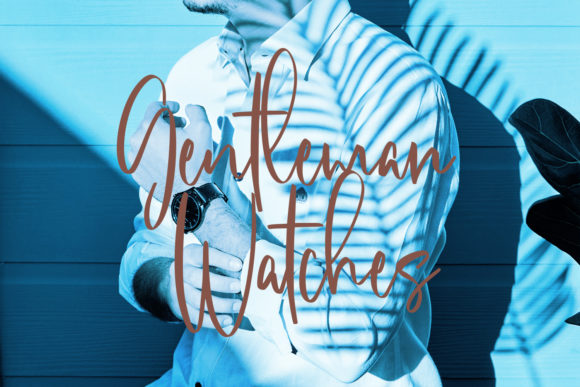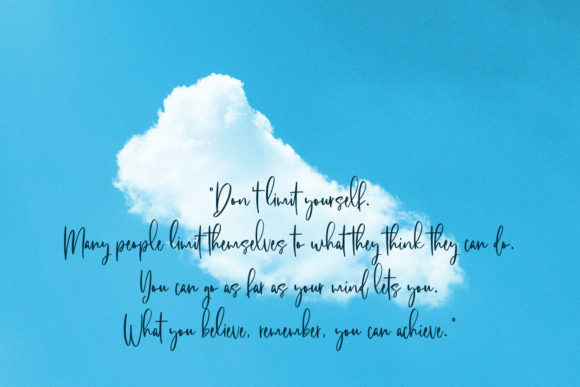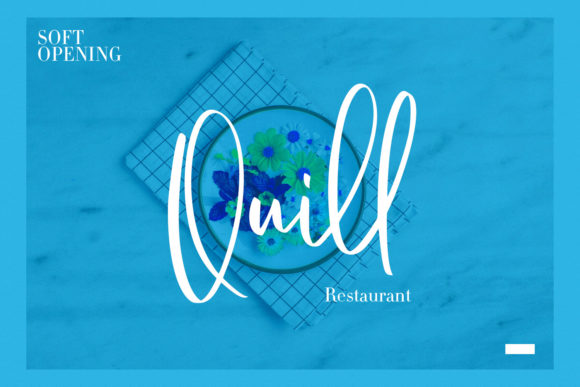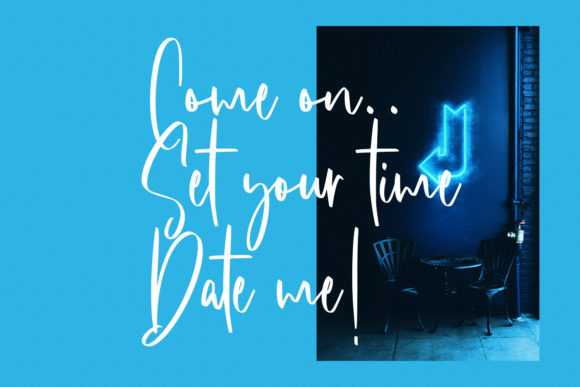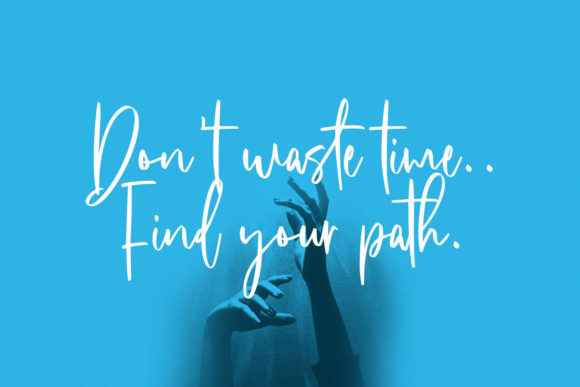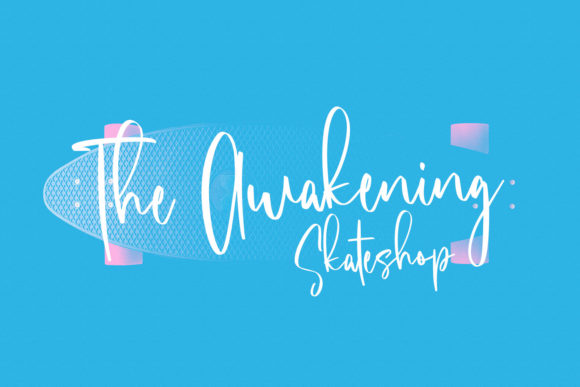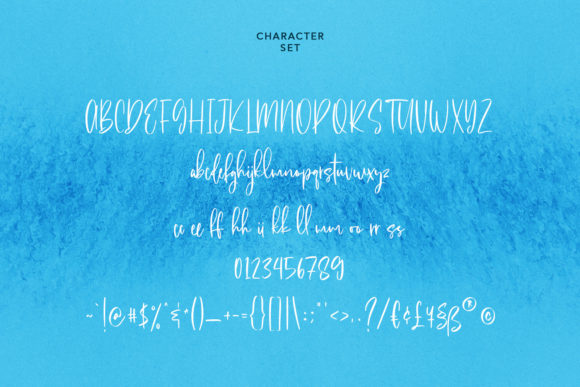
Oplatussy Script Font
About Oplatussy Script Font
Oplatussy Script is a sweet, relaxed, and flowing script font. Featuring characters that dance along the baseline, this font will add a luxury spark to any design project that you wish to create!